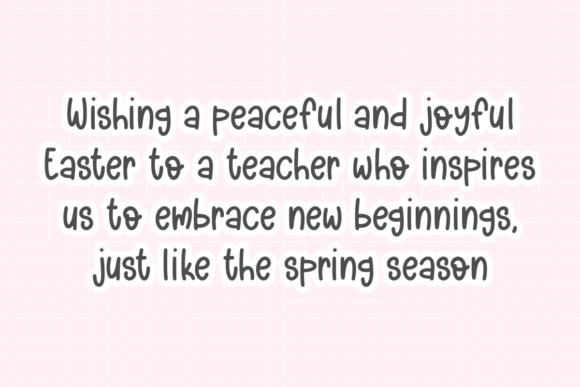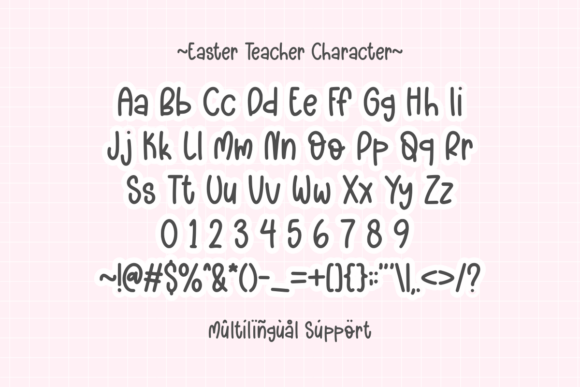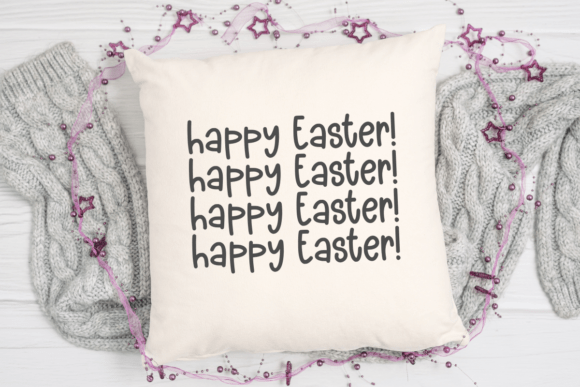
Easter Teacher Font
Easter Teacher is a cute and playful handwritten font, perfect for planners, stickers, cards, quotes, and craft projects. Ideal for creative moms who love DIY, journaling, and Cricut crafts!